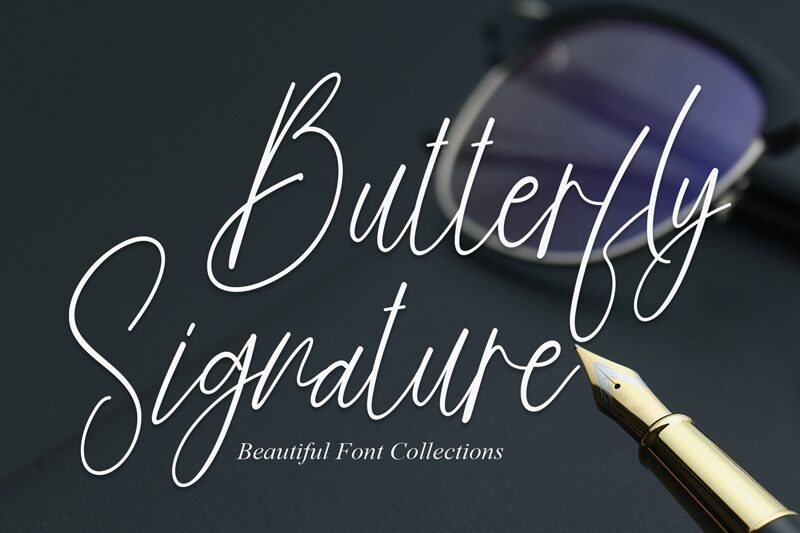
Butterfly Signature
Butterfly Signature, designed by scratchones, is a captivating handwritten font that exudes elegance and grace. With its light weight and condensed width, this font is ideal for a wide range of creative projects. Its delicate strokes and flowing curves make it perfect for wedding invitations, feminine branding materials, and luxurious product packaging. Whether you're designing a romantic greeting card or crafting an exquisite logo for a high-end beauty brand, Butterfly Signature will add a touch of sophistication and charm to any project. Embrace the allure of this enchanting typeface and let your creativity take flight.
the latest style letters are perfect for wall displays, wedding invitations, social media post logos, advertisements, product packaging, product designs, labels, photography, watermarks, invitations, stationery, and any project that requires taste handwriting.